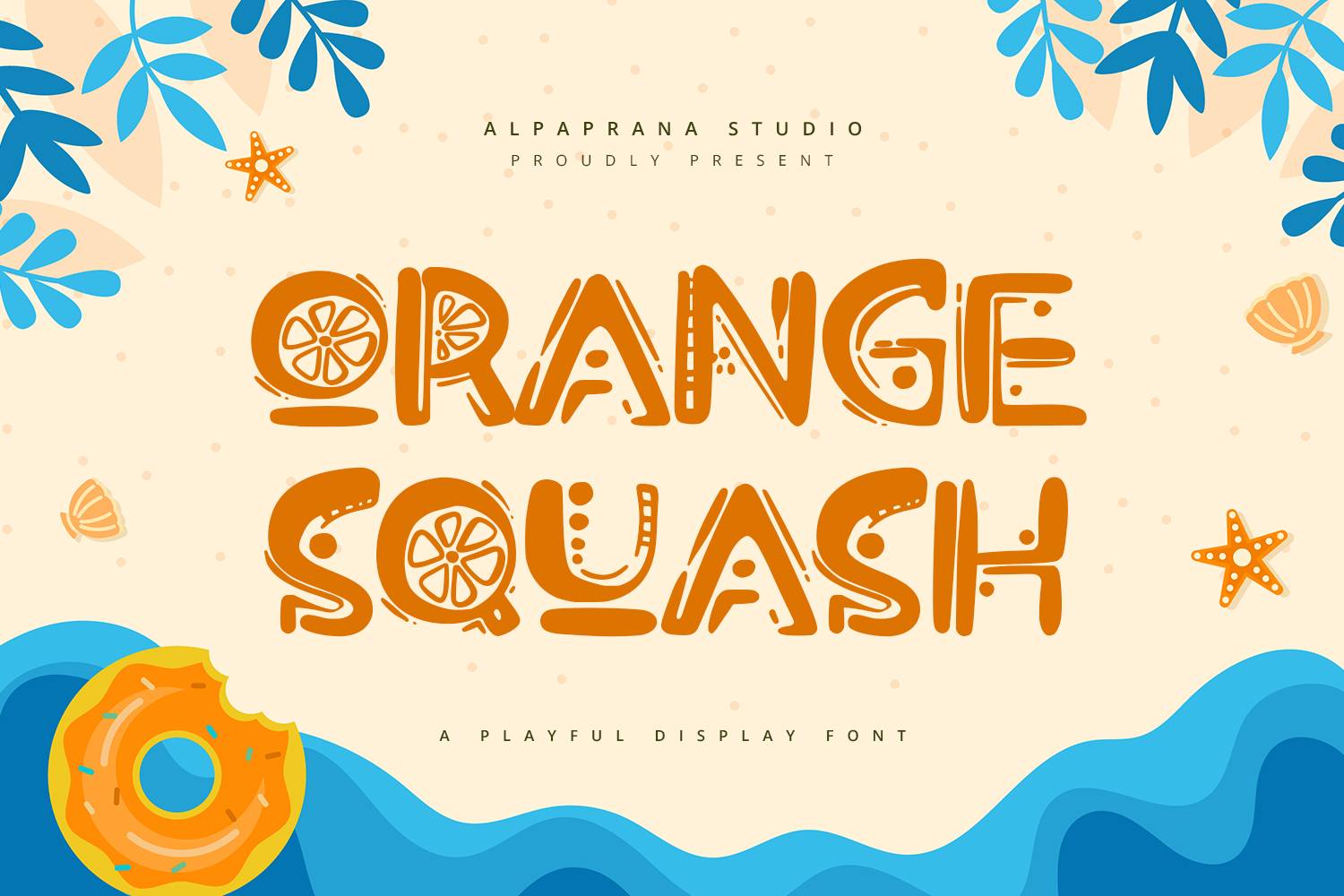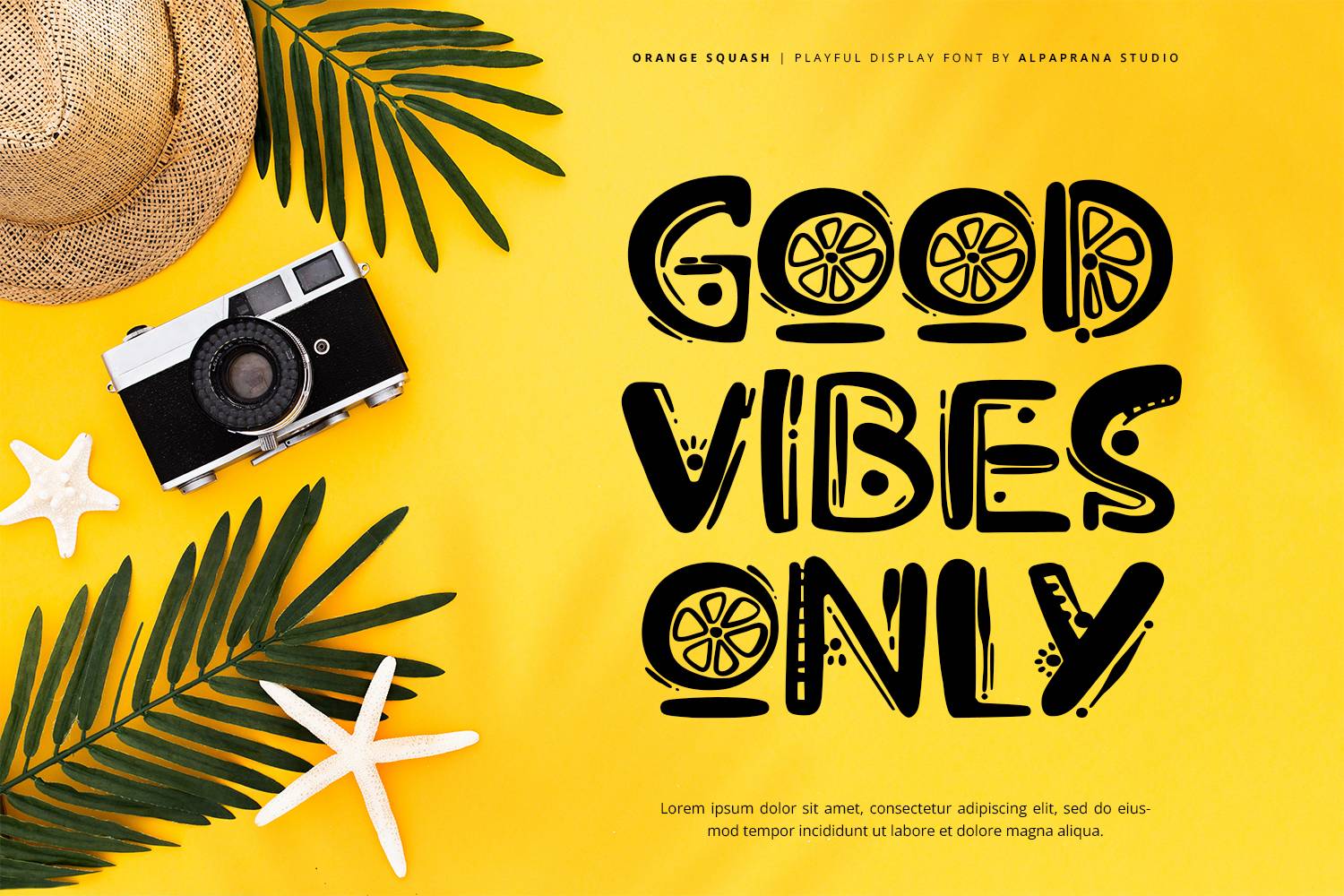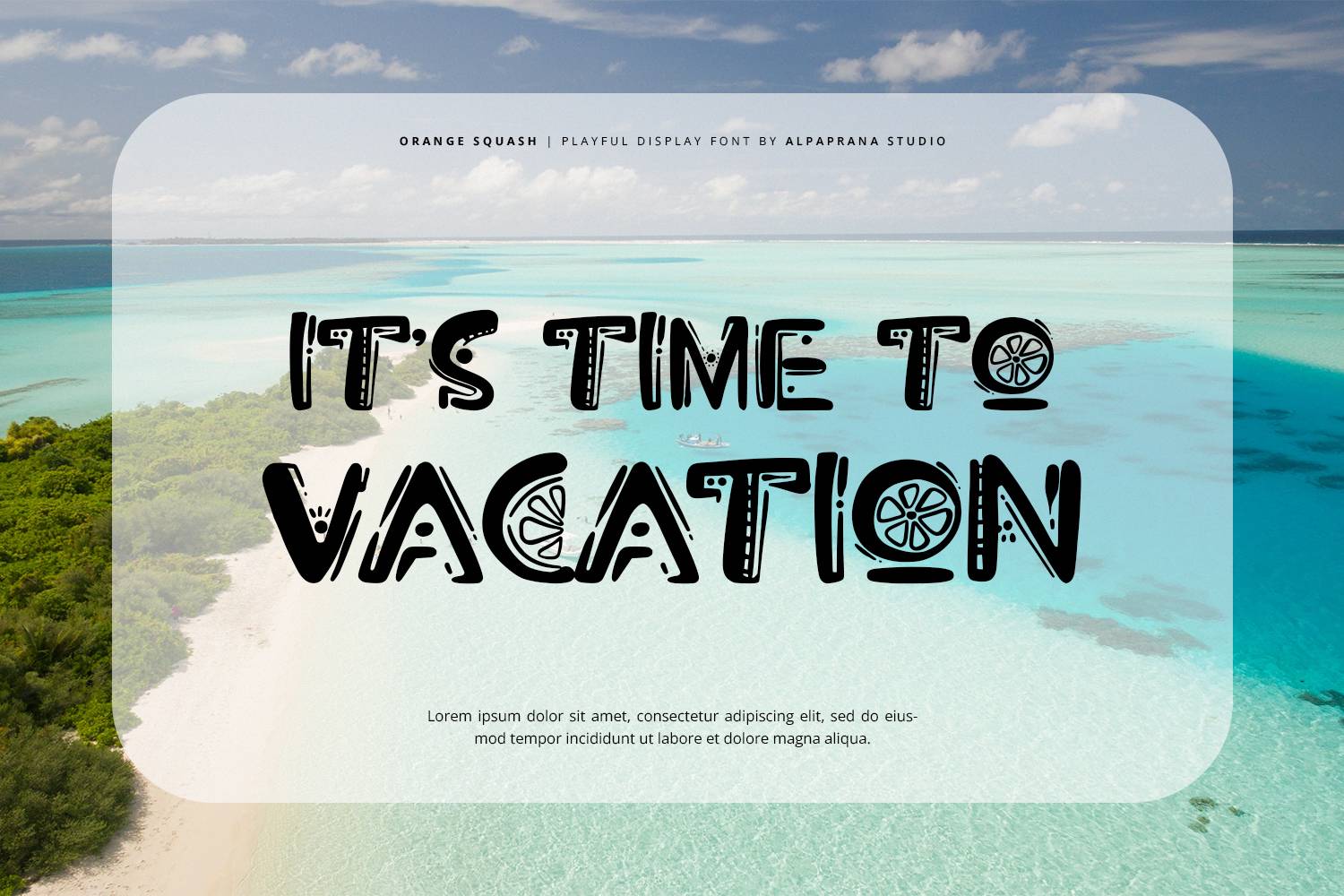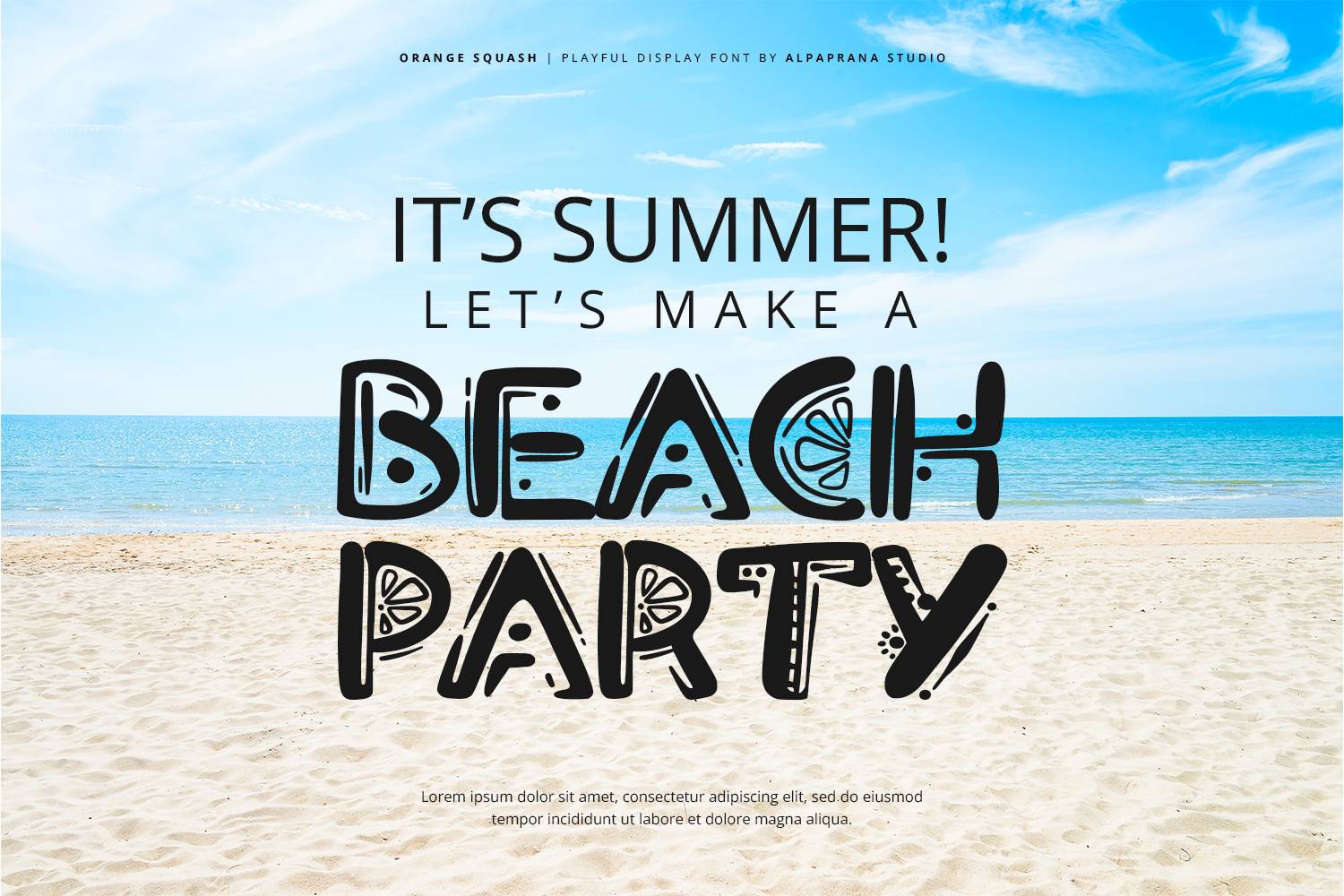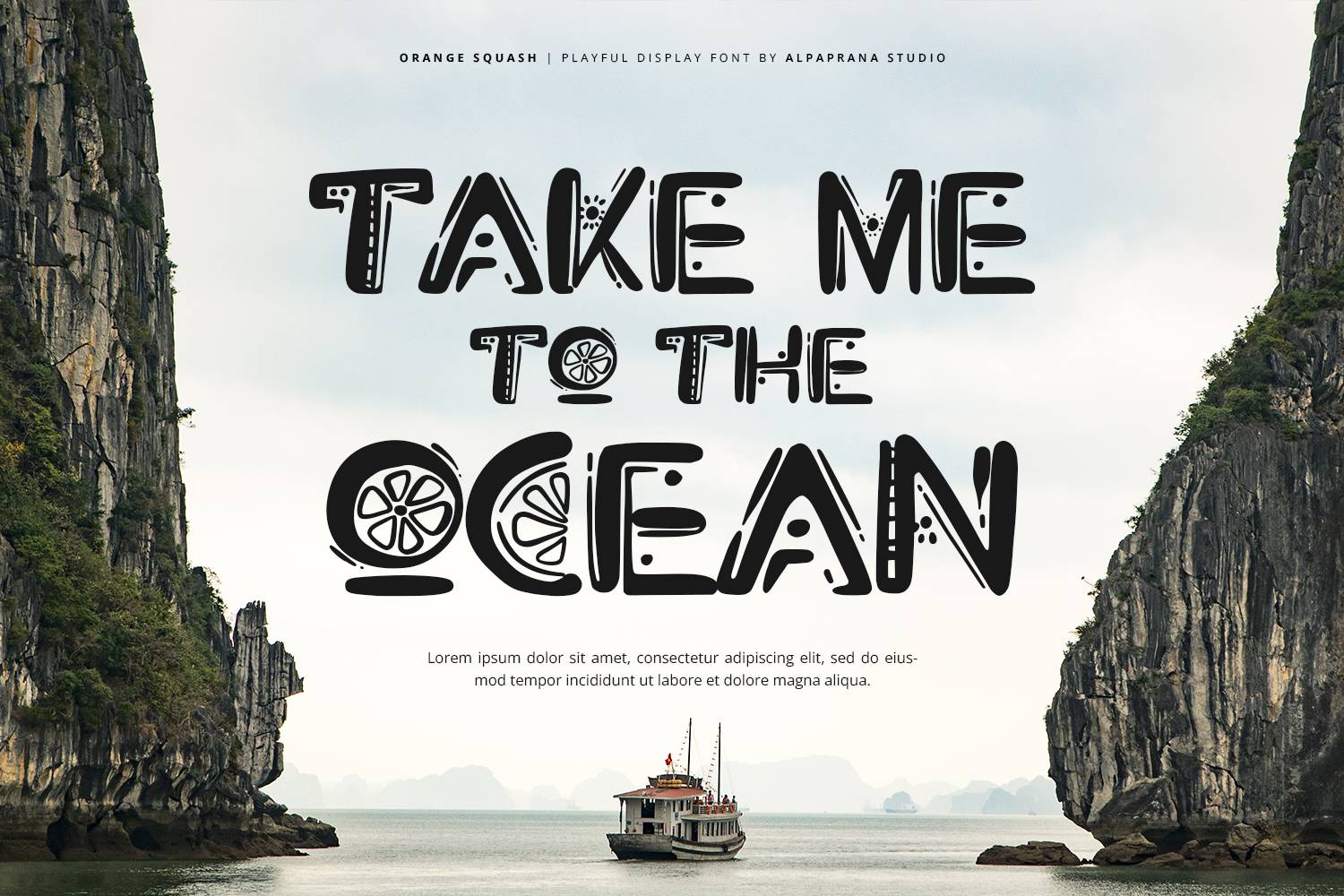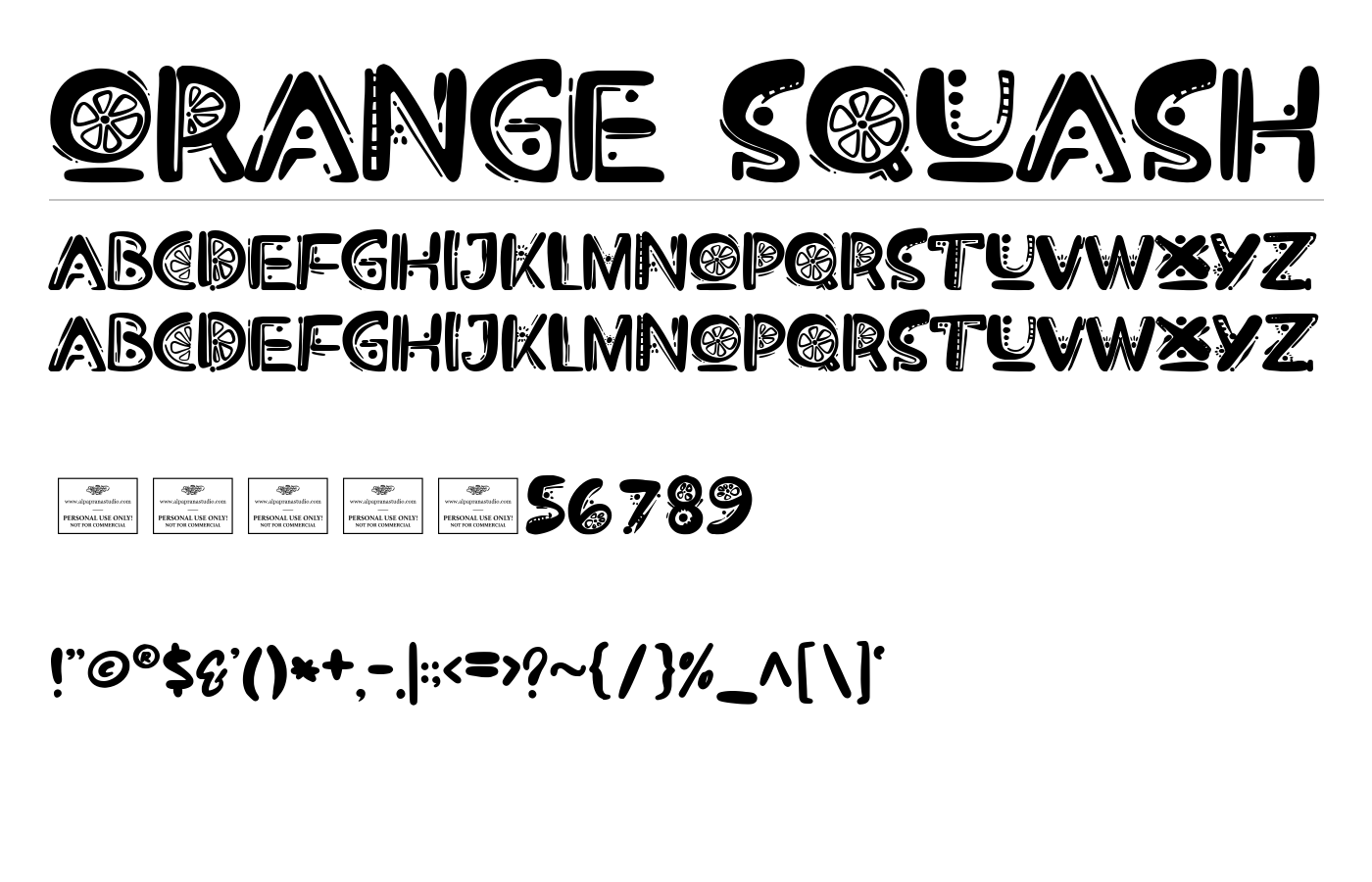
Orange Squash is a playful, bold display font with a quirky, hand-drawn feel that combines thick strokes with fun decorative elements like citrus slice motifs inside letters. Its irregular shapes and high contrast strokes give it a lively, informal personality perfect for eye-catching headlines, packaging, and branding that aims to evoke creativity and a fresh, energetic vibe. This font works best where a unique and whimsical style is desired, adding charm and character to creative projects and youthful designs.
Orange Squash Font
About Orange Squash Font